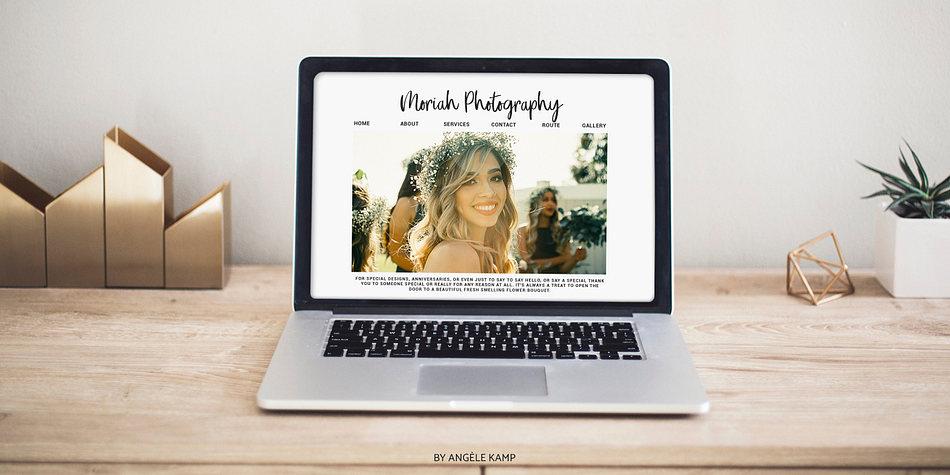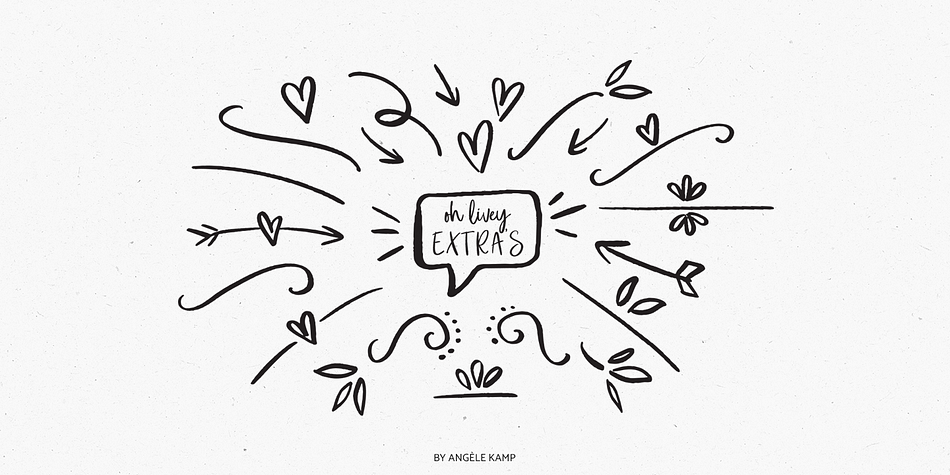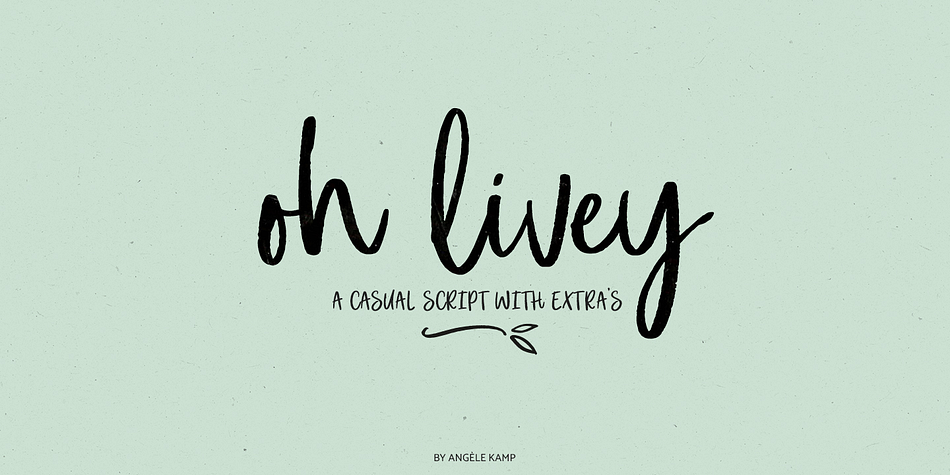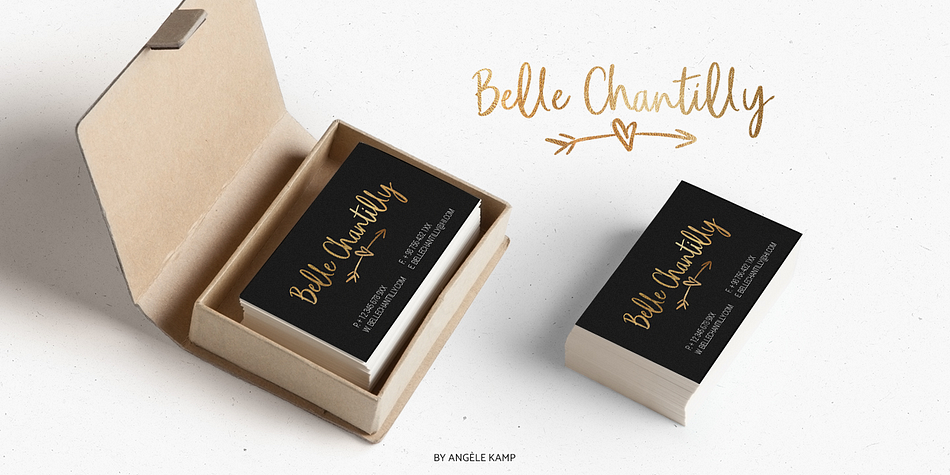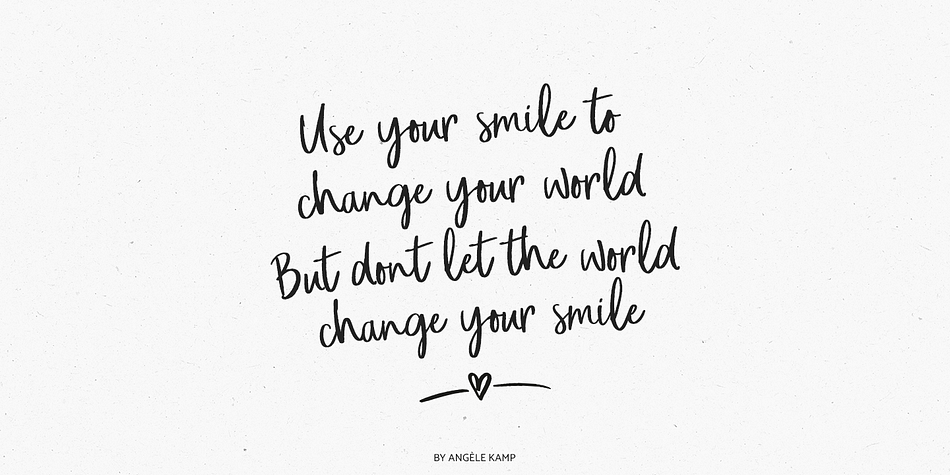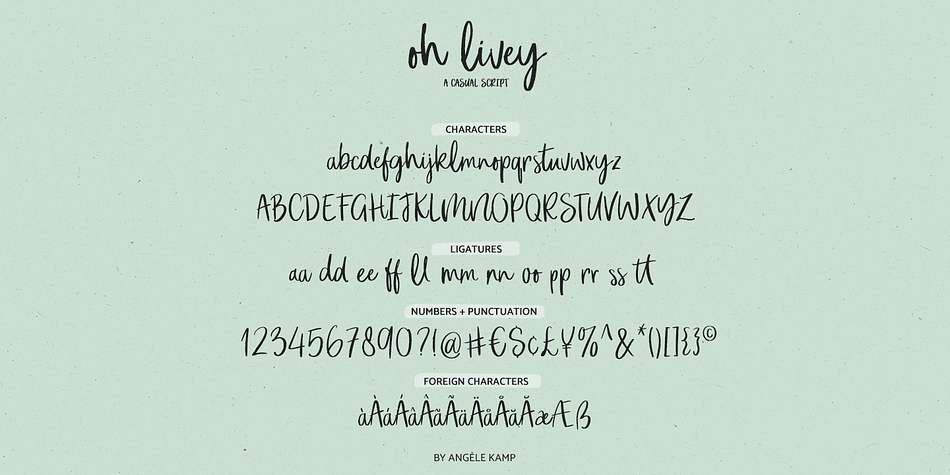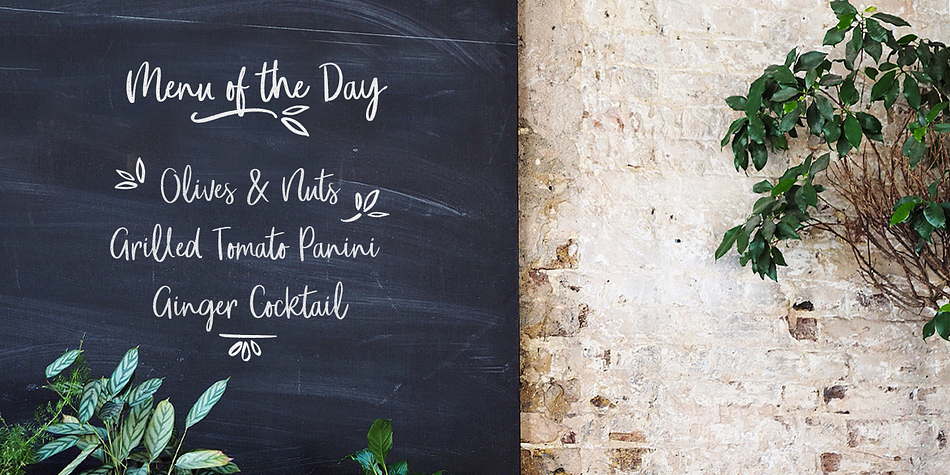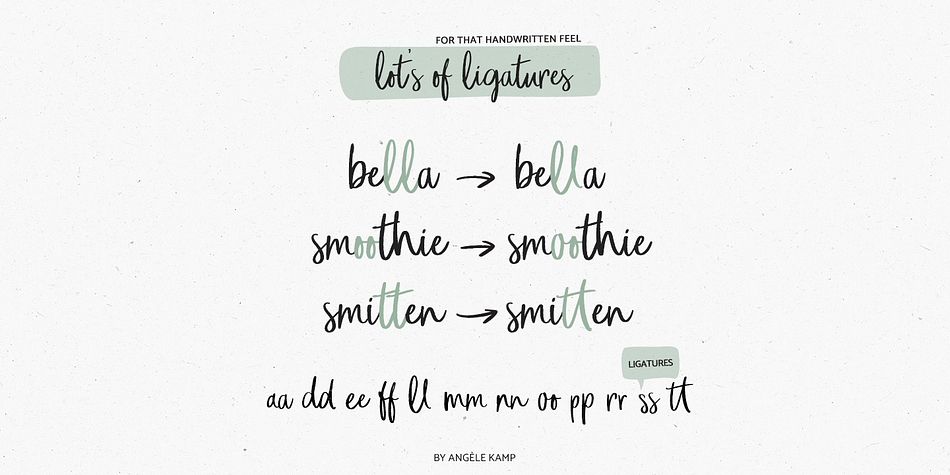
Oh Livey is a brush script, modern calligraphy and dingbat font family. This typeface has two styles and was published by Angèle Kamp.
Oh Livey is a casual brush script that has a fun, modern vibe. Put it on everything from logo’s, quotes and websites, and use the extra clipart which will make designing so much easier and fun.
Oh Livey contains lots of ligatures which will give it that authentic hand written feel.